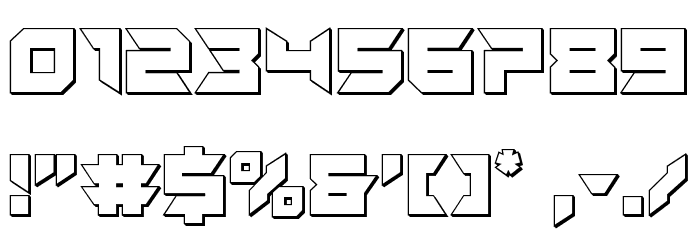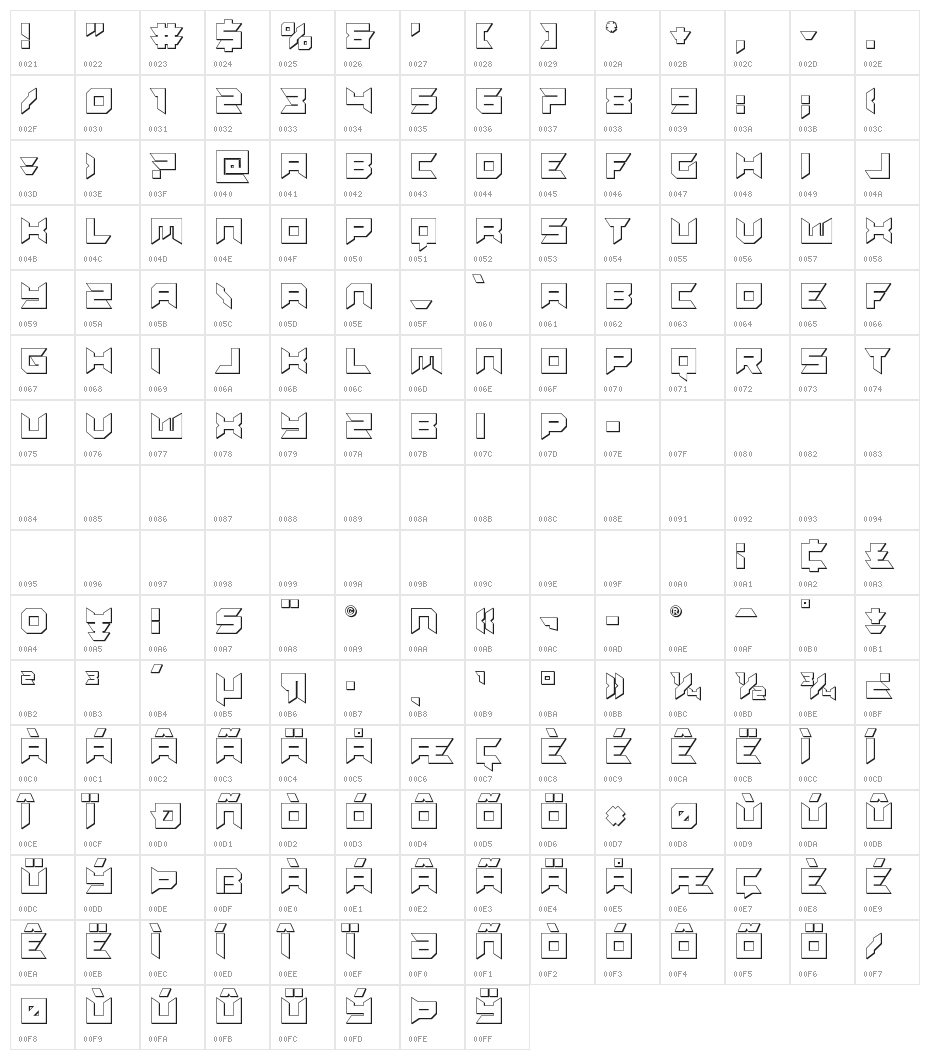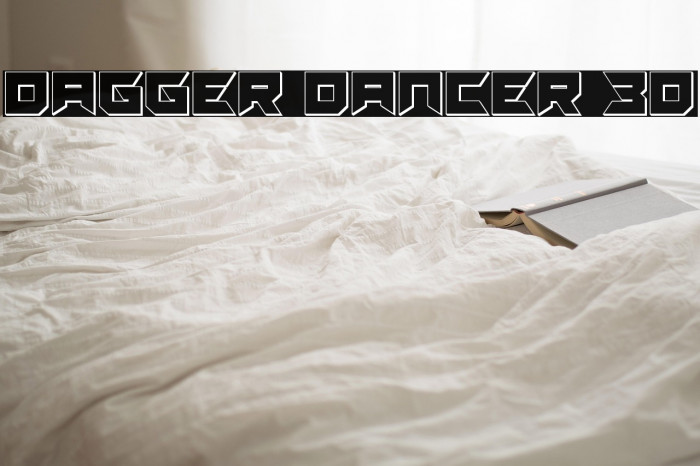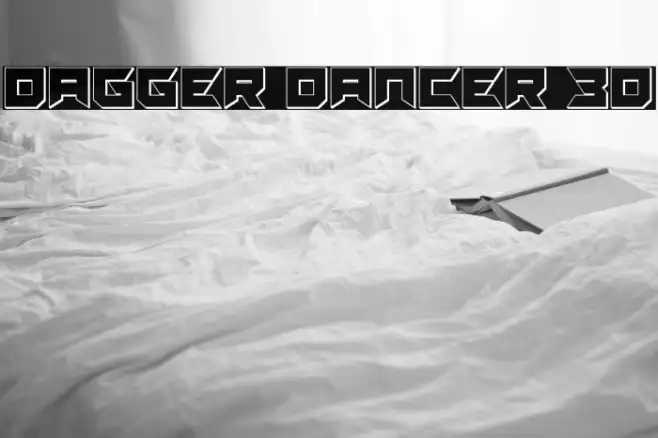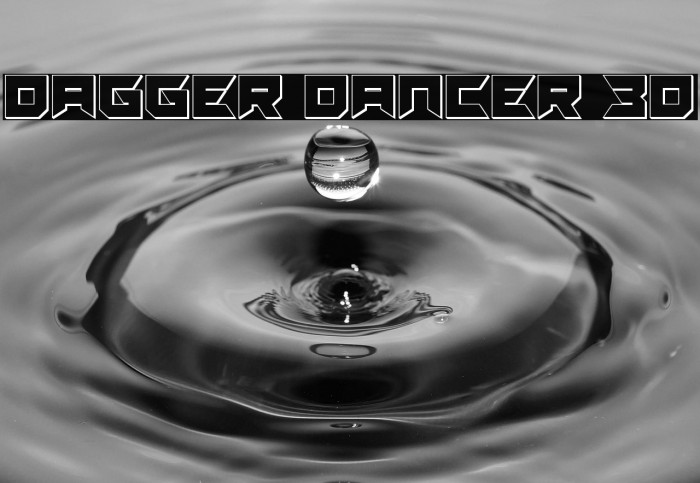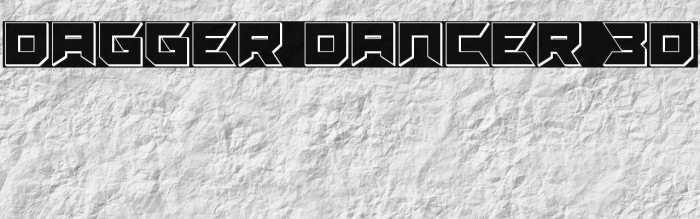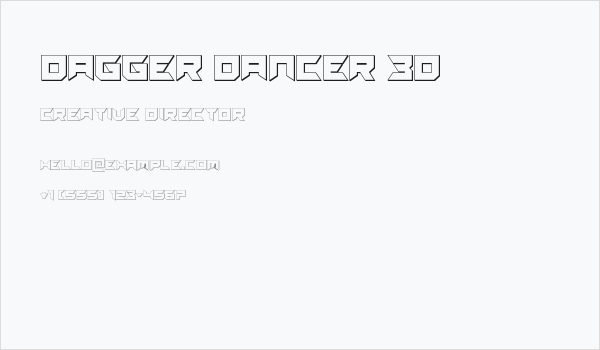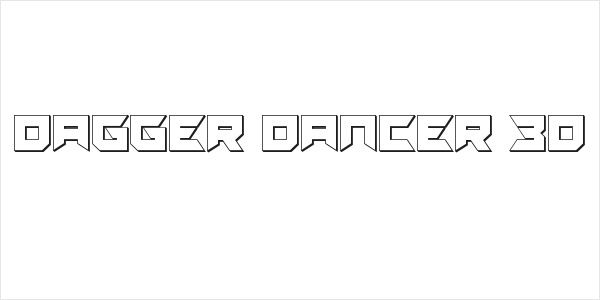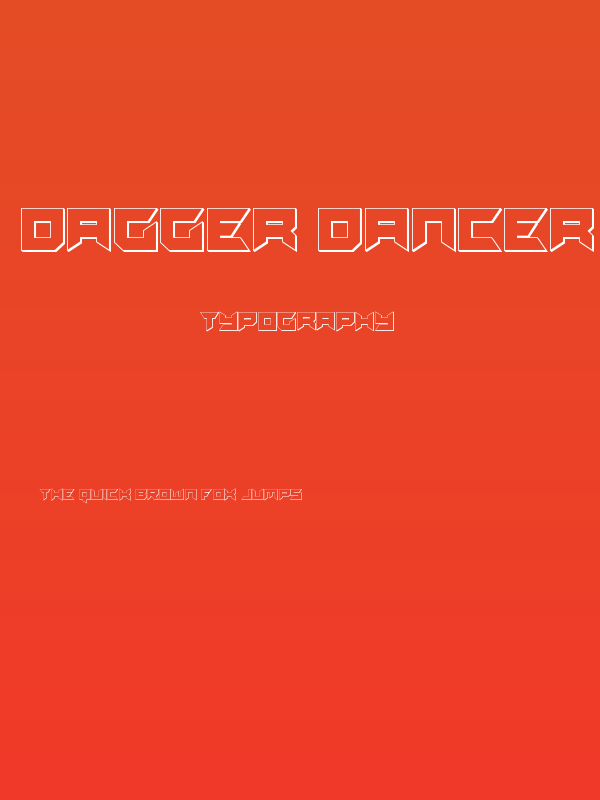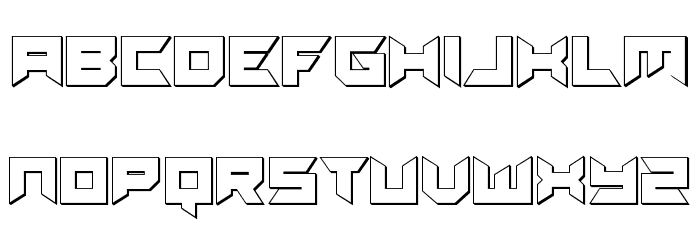
Dagger Dancer 3D Font
Dagger Dancer 3D Description
This font features a bold, geometric design with a three-dimensional effect that gives each character a distinct, angular appearance. The letters are constructed with sharp edges and a blocky style, creating a futuristic and dynamic look. The uppercase and lowercase letters maintain a consistent style, with the numbers and special characters following the same design principles. The font's structure is clean and precise, making it suitable for projects that require a modern and edgy aesthetic. Its unique style makes it stand out, ideal for attention-grabbing headlines or logos.